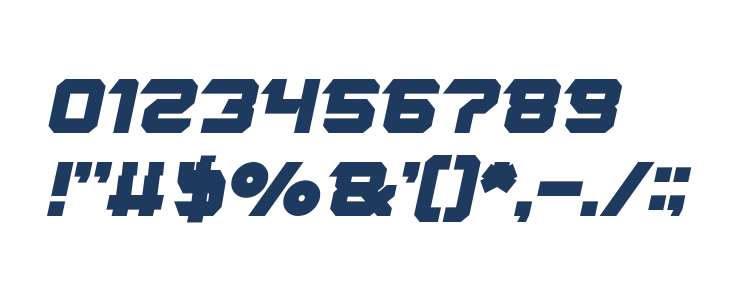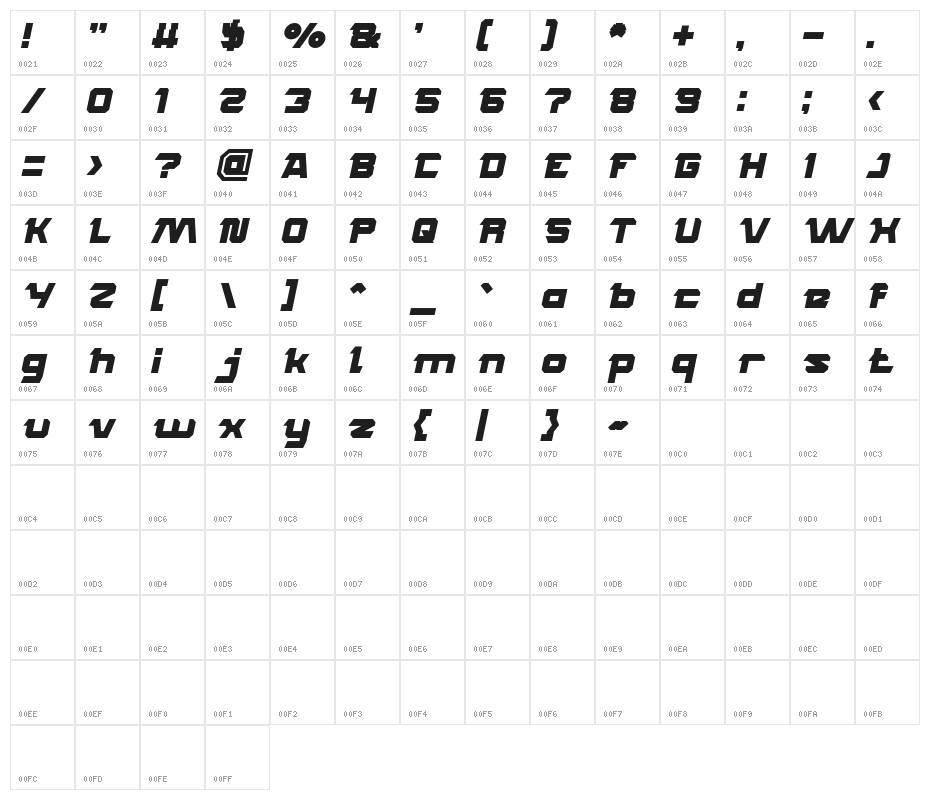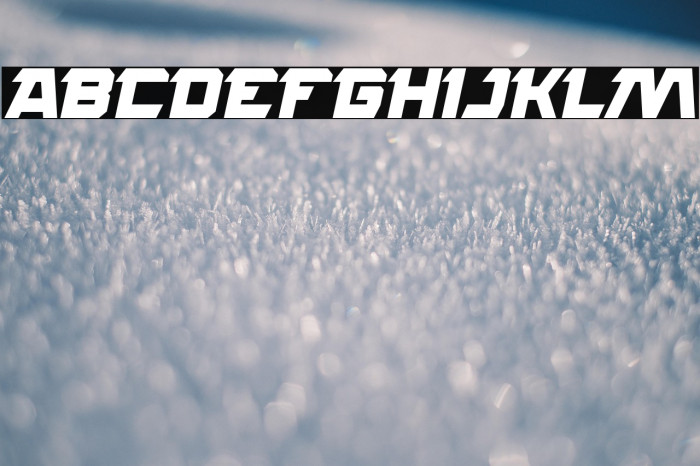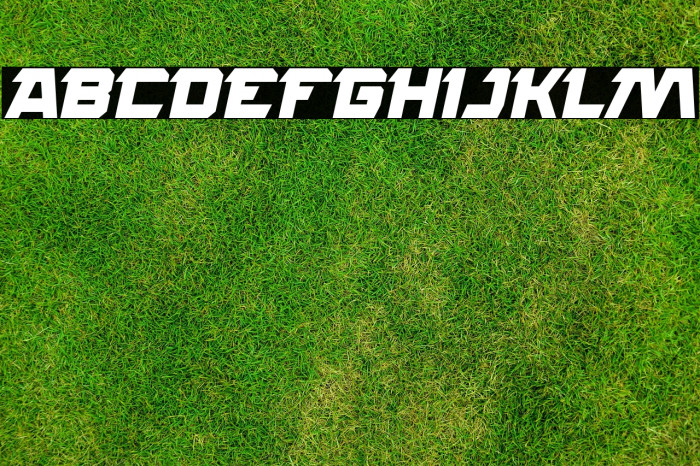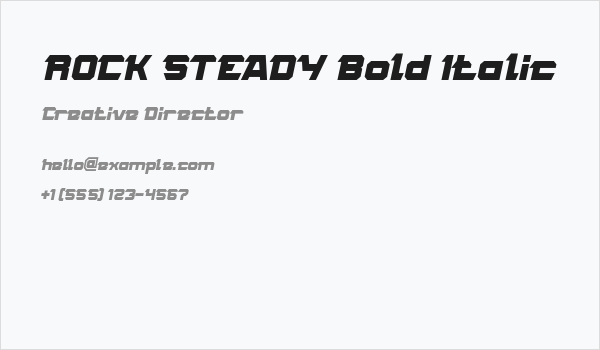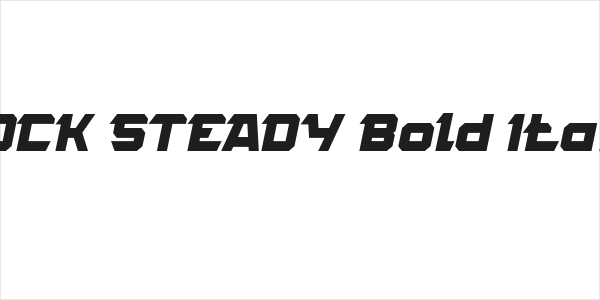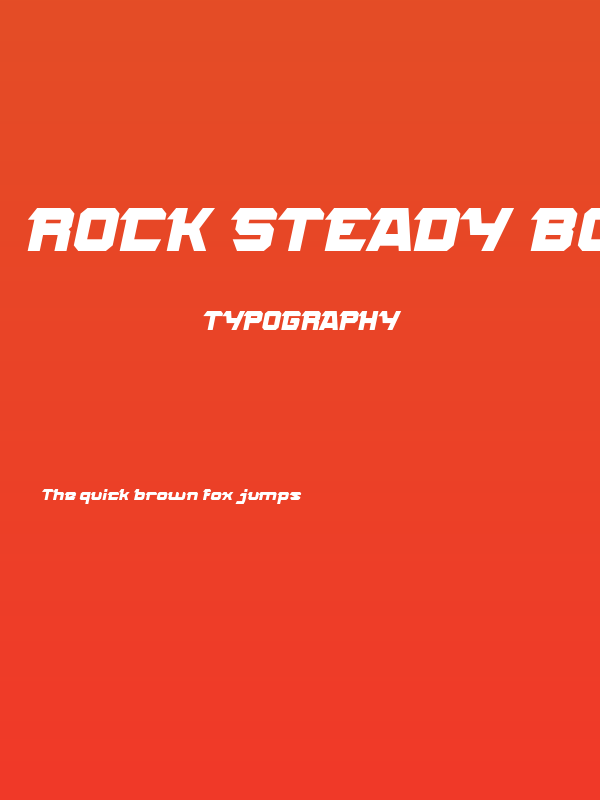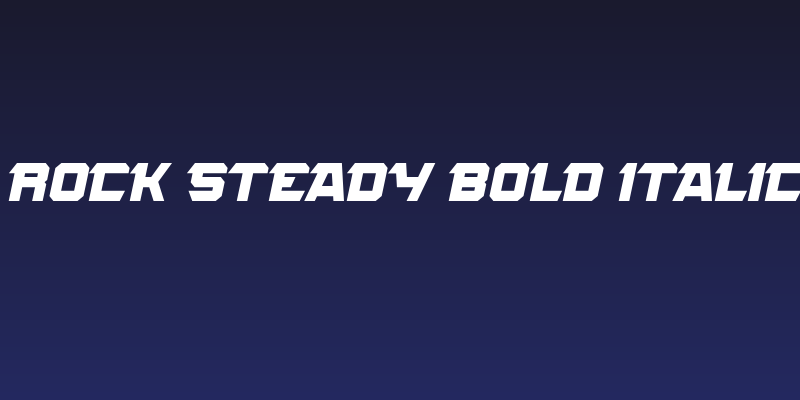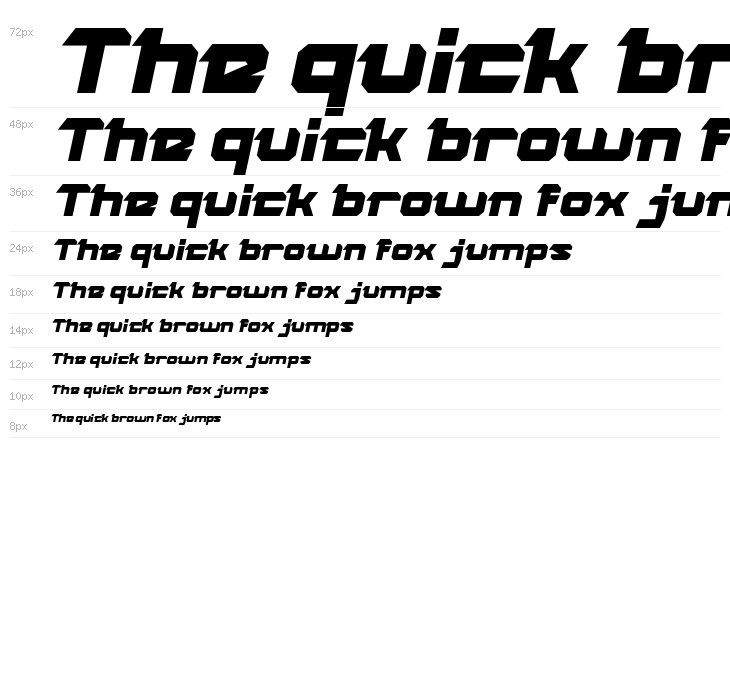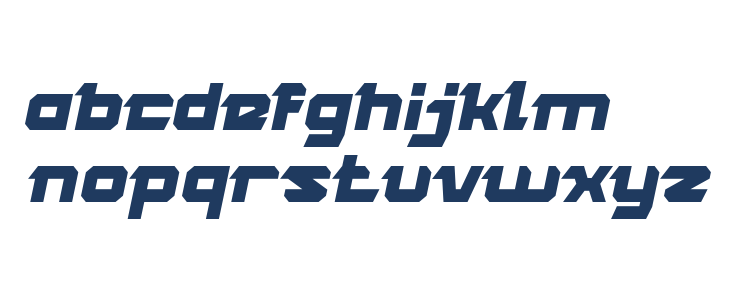
ROCK STEADY Bold Italic Font
ROCK STEADY Bold Italic Description
This font features a bold and italicized style with a strong, angular design. The characters are sharply defined with thick strokes, giving it a robust and dynamic appearance. The uppercase and lowercase letters maintain a consistent slant, enhancing the italic effect. The numbers and special characters follow the same bold and angular theme, ensuring uniformity across all elements. The font's geometric shapes and sharp edges convey a sense of modernity and strength, making it suitable for impactful and attention-grabbing designs.
| Proposed Projects | Ideal for sports branding, action movie posters, video game titles, and dynamic logo designs. |